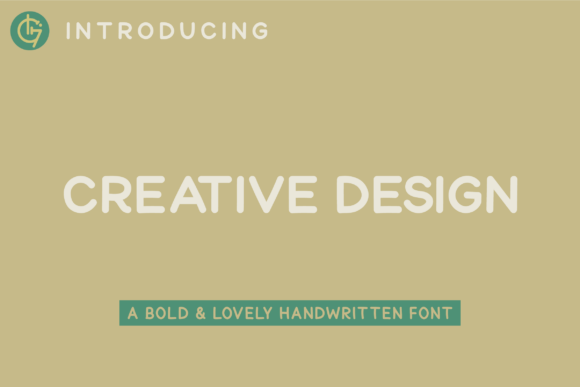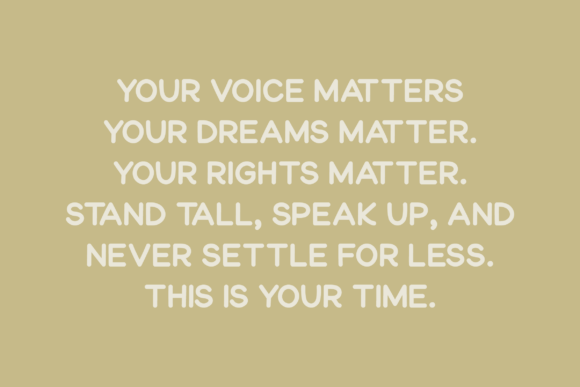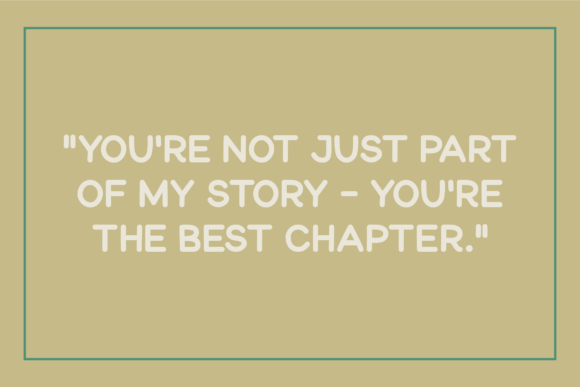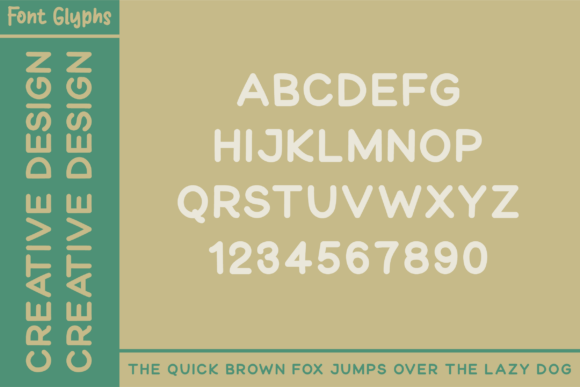
Creative Design Font
About the Creative Design Font
The Creative Design Font offers a perfect balance of form and function for your design needs. Creative Design is a quirky all caps font made up of capital letters A-Z, numbers 0-9, accented characters and punctuation. This font is perfect for social media or crafty projects. Simple and smooth perfect for crafting, t-shirts, decals, cards, invitations and so much more.
Its quirky, all-caps style makes it ideal for headlines, short text blocks on posters or packaging, and social media graphics where impact is key. However, avoid using it for body text or lengthy paragraphs; its uppercase-only nature and playful design hinder readability in extended use. Consider it for branding projects needing a bold, friendly, and slightly unconventional feel.
Creative Design Font pairs well with clean sans-serif fonts like Open Sans or Lato for a balanced contrast, or a more refined serif like Merriweather for a touch of classic elegance. For a playful pairing, consider a rounded geometric sans-serif like Montserrat.
The font’s overall personality is energetic and approachable, making it suitable for brands targeting a younger demographic or those wishing to project a fun, creative image. It is less appropriate for projects needing a sophisticated or minimalist aesthetic.
Creative Design Font Usage Examples
Creative Design Font Example